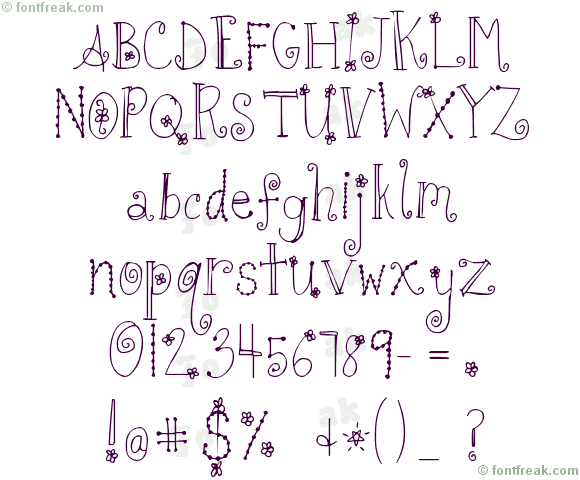
Tuna and Hot Dogs on Rye is a delightful decorative typeface designed by Kimberly Geswein in 2007. This font falls into the category of playful, handwritten styles, exuding a whimsical charm that makes it a unique choice for various creative projects. The visual characteristics of this typeface feature a light stroke weight with a slightly uneven quality, giving it an organic, hand-drawn feel. The letters are spaced generously, allowing for easy readability, while the playful curves and occasional embellishments add a touch of personality to the text.
This font is ideal for a variety of use cases. It shines in wedding invitations, where its informal yet charming style can set a light-hearted tone. It is also perfect for creating inviting restaurant menus, particularly for establishments that want to convey a cozy, eclectic atmosphere. Moreover, Tuna and Hot Dogs on Rye works well in children’s book covers, where its fun, whimsical aesthetic can capture the attention of young readers. Graphic designers might find it useful for crafting eye-catching posters or social media graphics that require a friendly and approachable typeface. Additionally, small business owners seeking to inject personality into their branding materials will appreciate its unique flair.
The target audience for this font includes graphic designers, small business owners, and content creators looking to add a distinctive touch to their projects. The Tuna and Hot Dogs on Rye font free download opens up opportunities for creative expression without the burden of licensing fees. Its playful nature and unique visual appeal make it stand out among many other fonts, ensuring that any project it graces will be memorable and engaging. Whether you're designing for a special occasion or just for fun, this typeface is sure to bring a smile to your audience's faces.